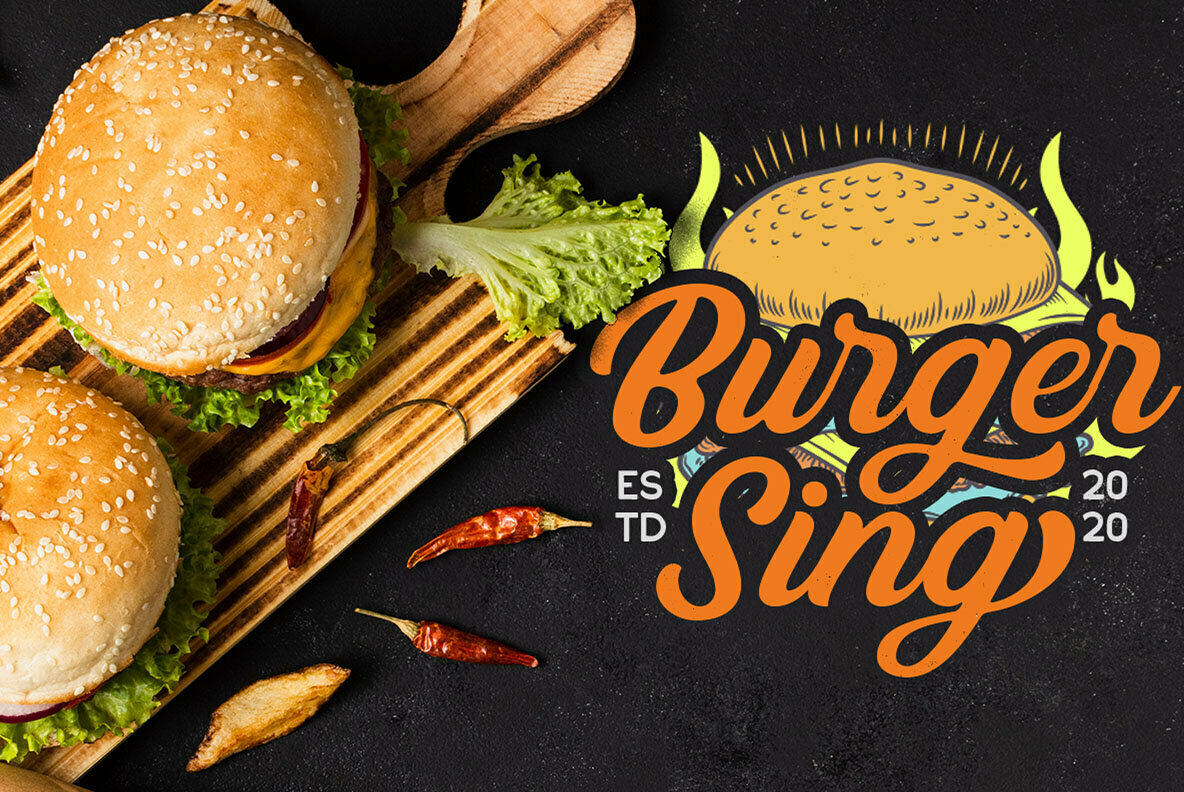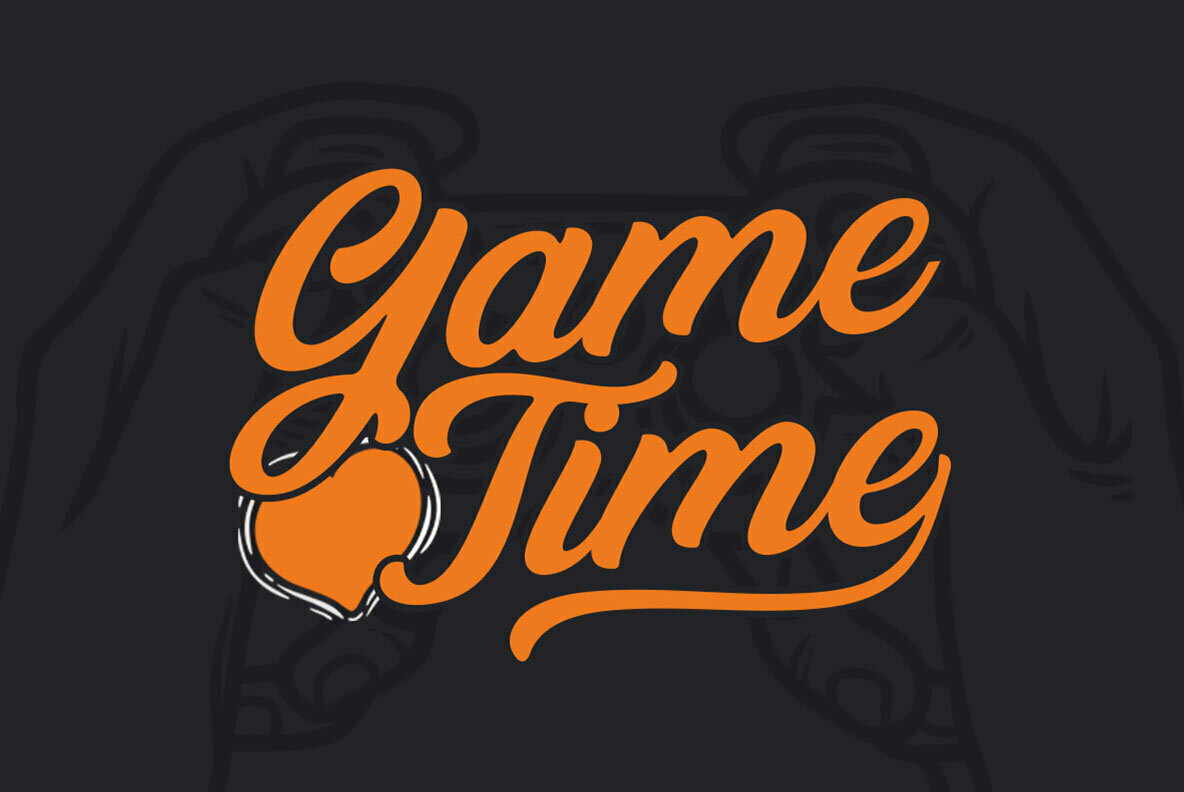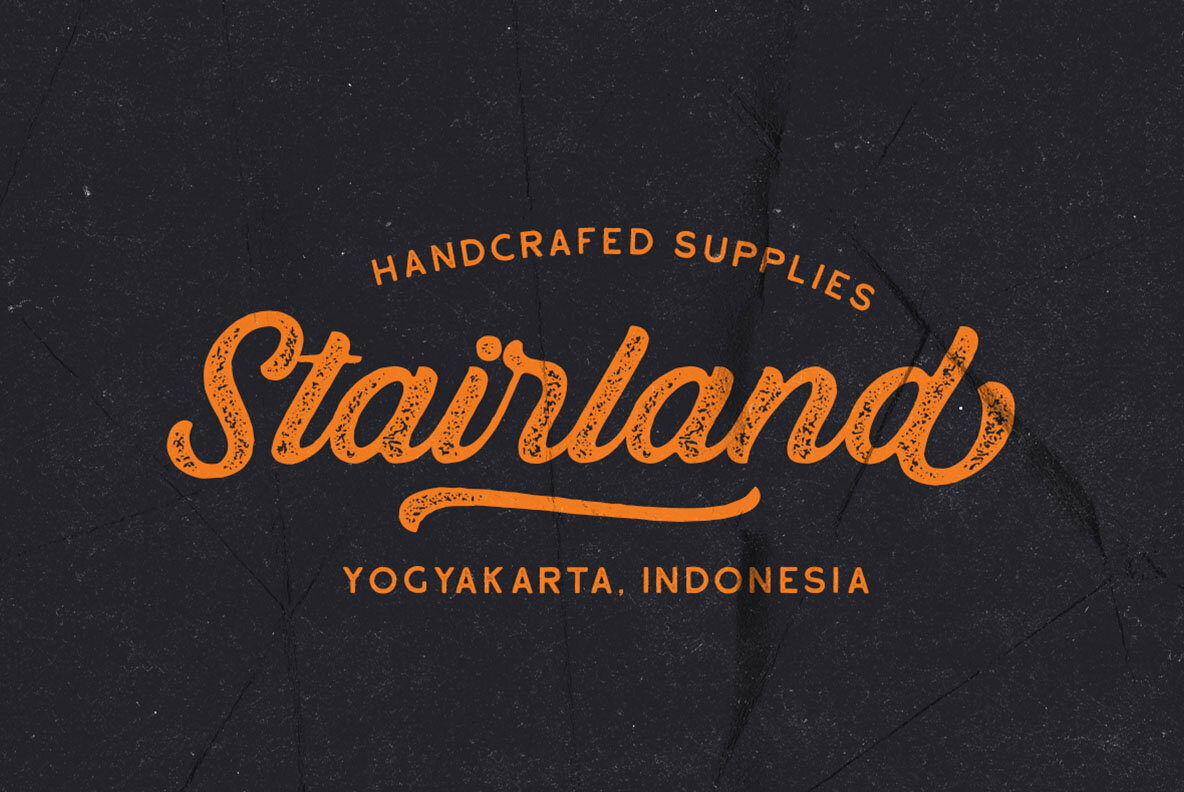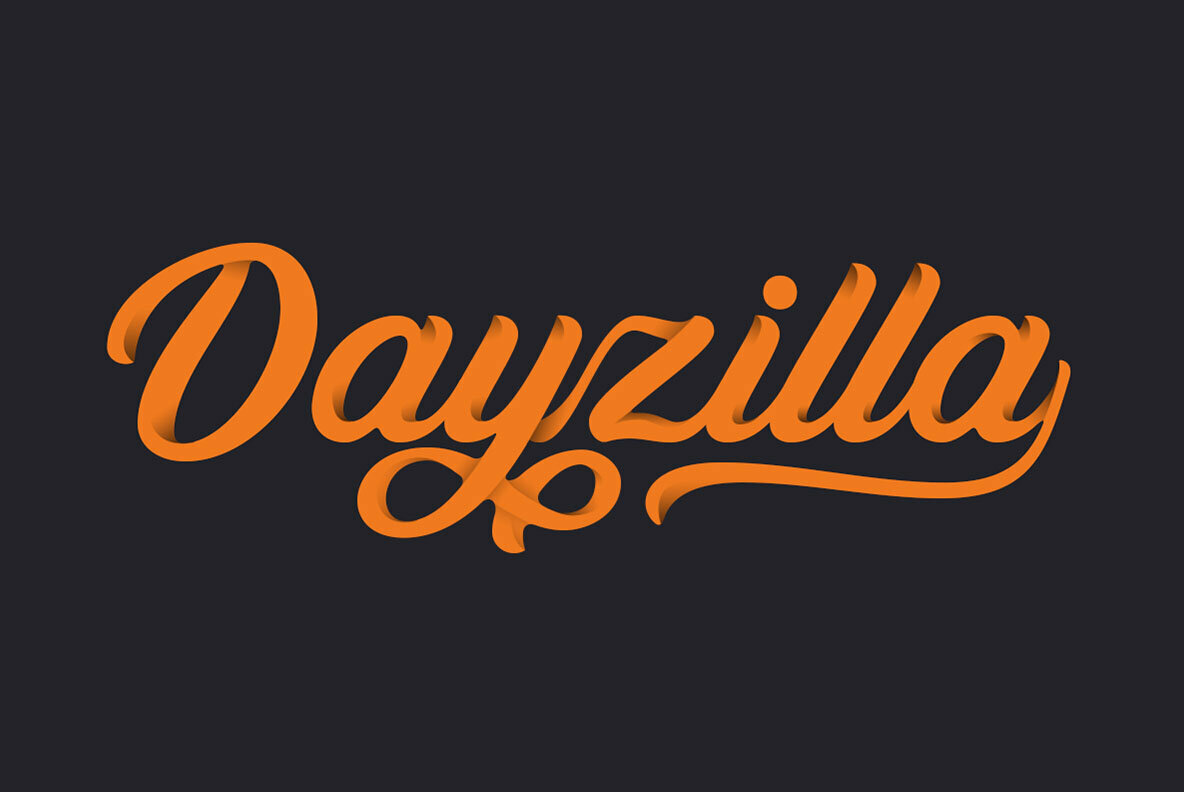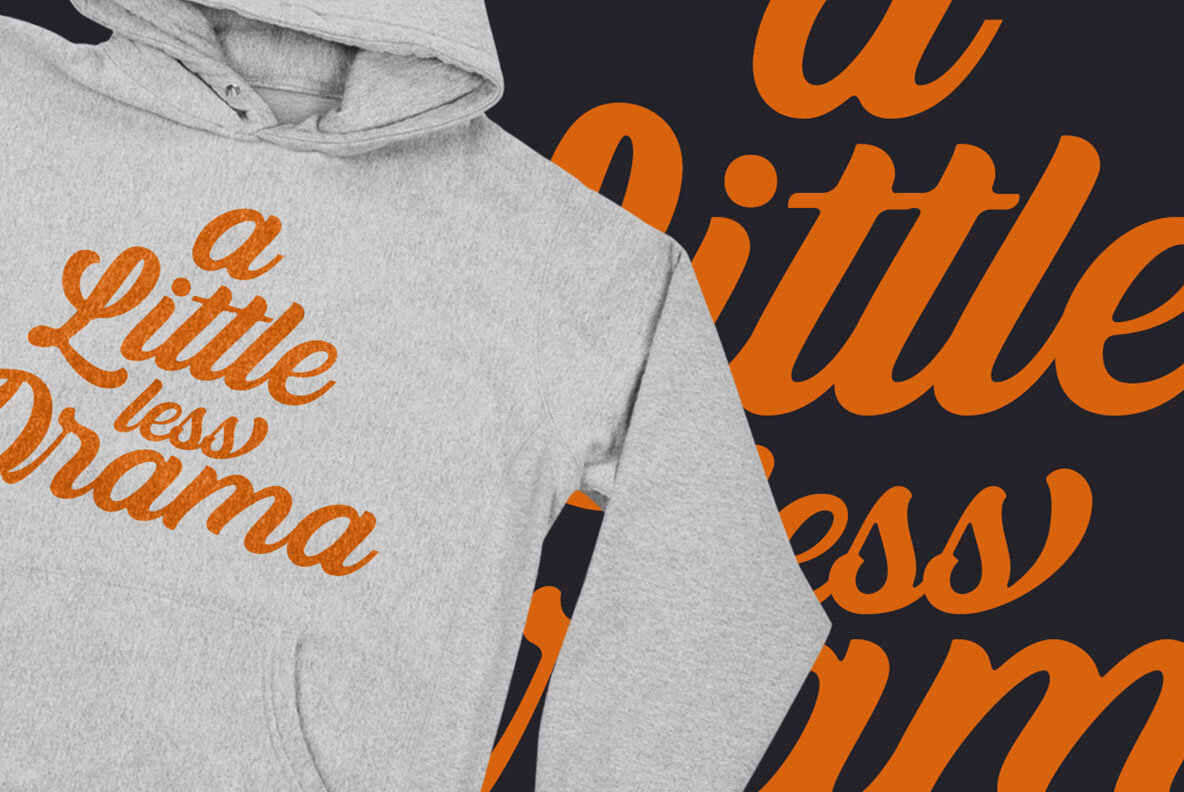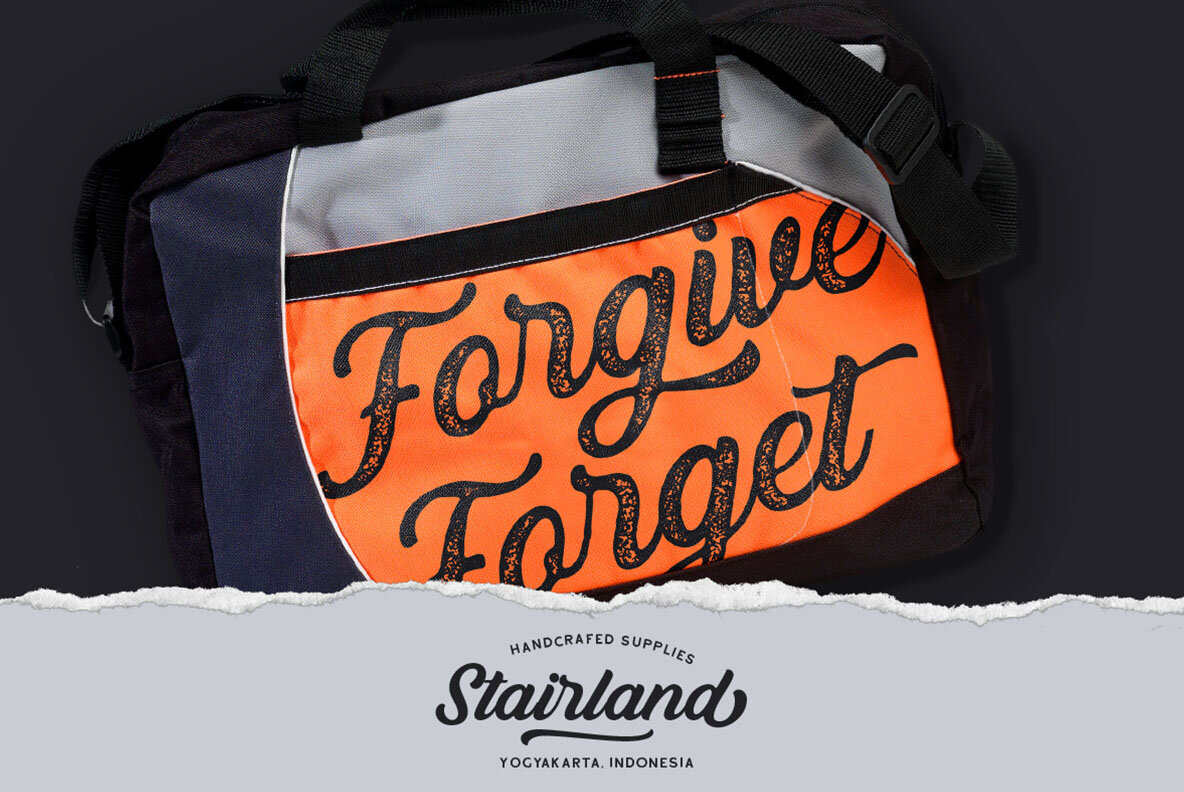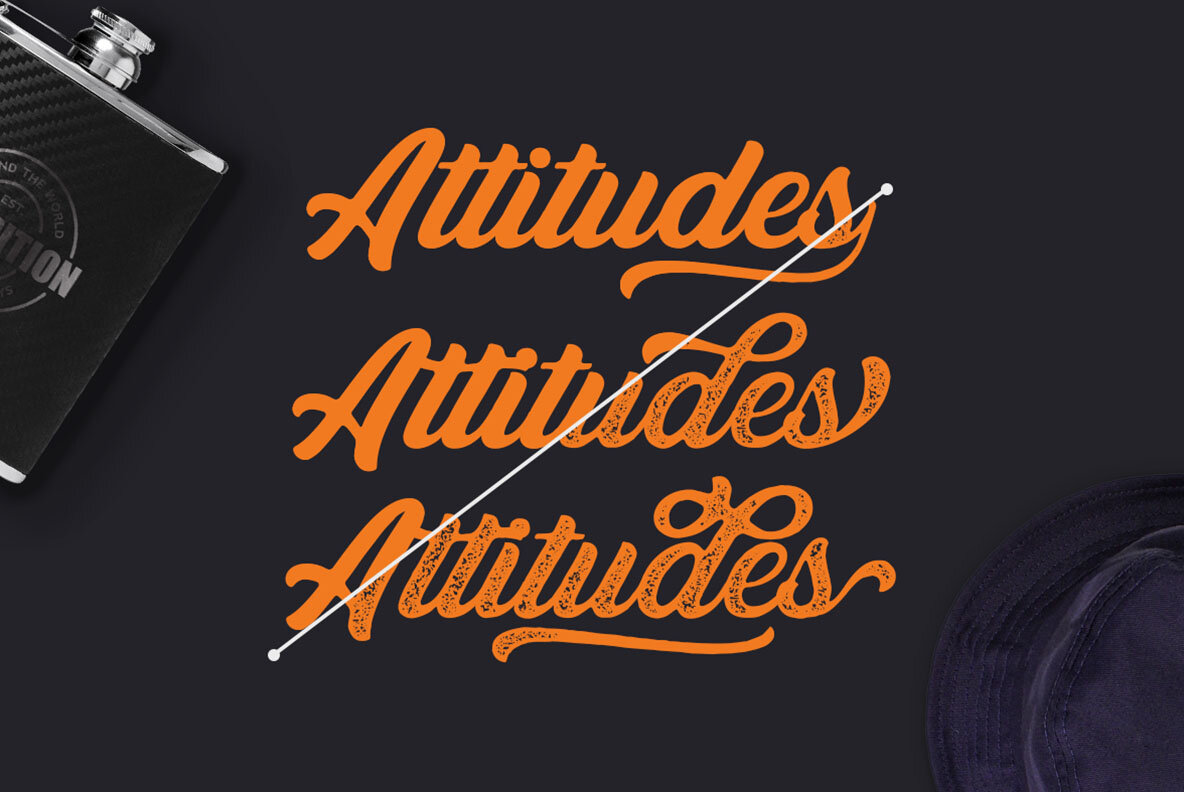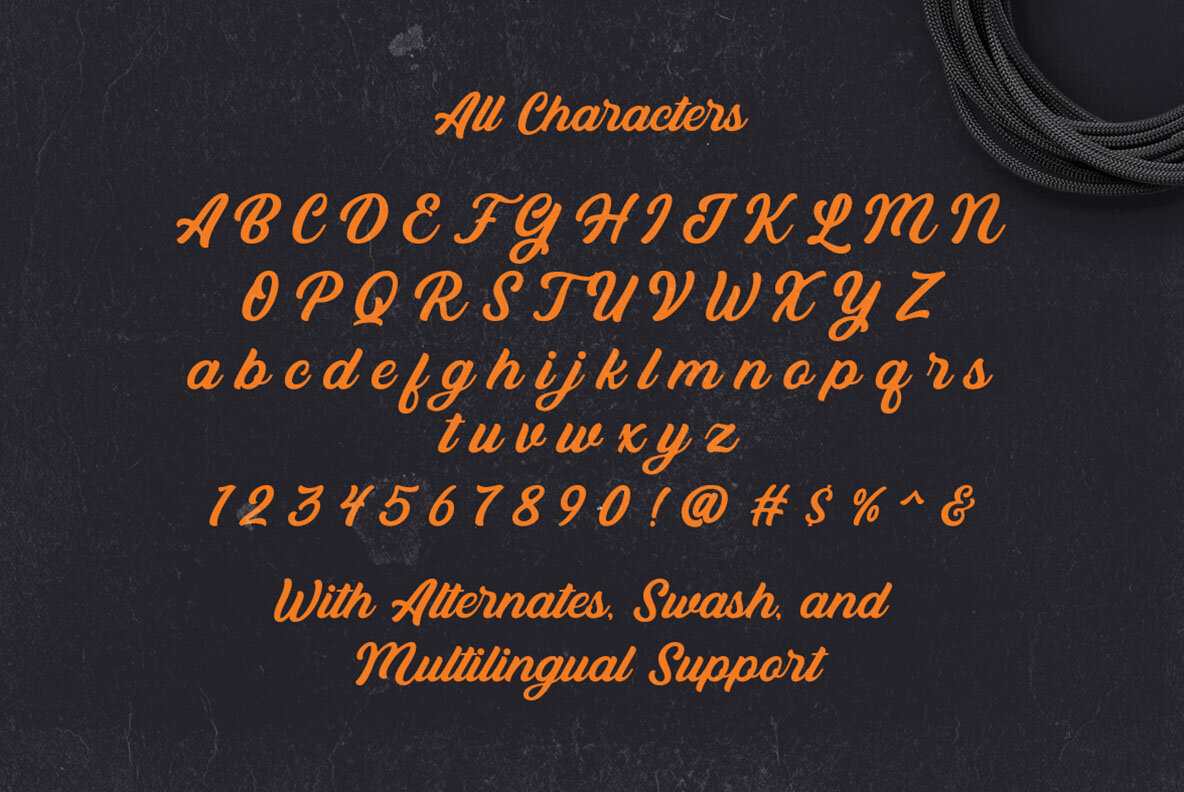
Bandira Font
The Bandira Script Typeface offers a handcrafted touch, making it ideal for a variety of projects such as logotypes, apparel design, invitations, branding, packaging, and advertising. With its dynamic style, it lends a personal and engaging feel to any design.Bandira Script Typeface: Elegance in Every Stroke